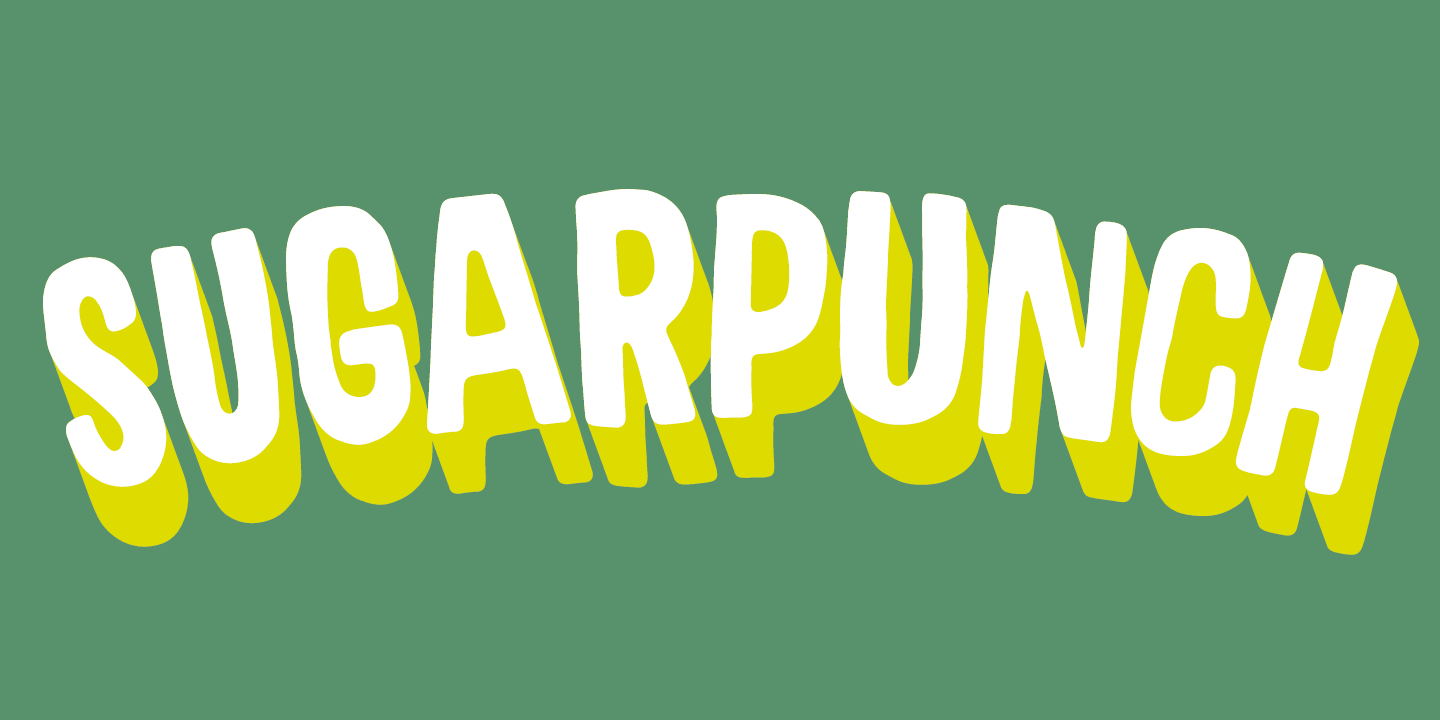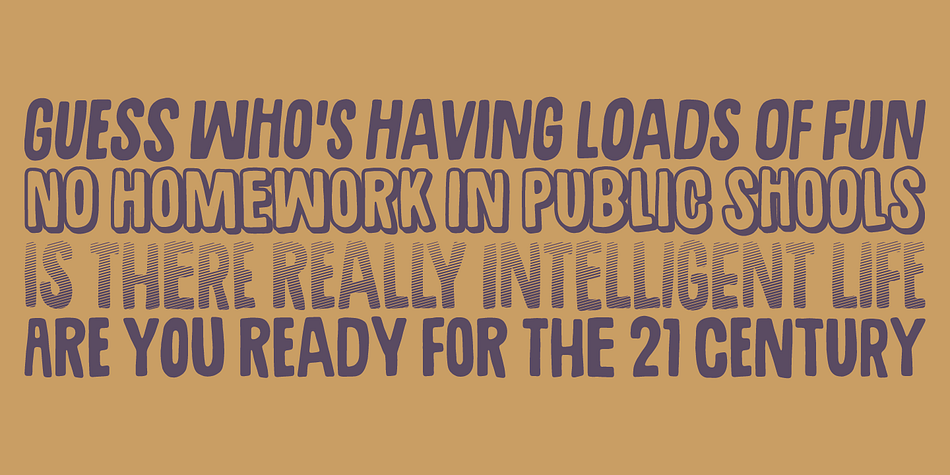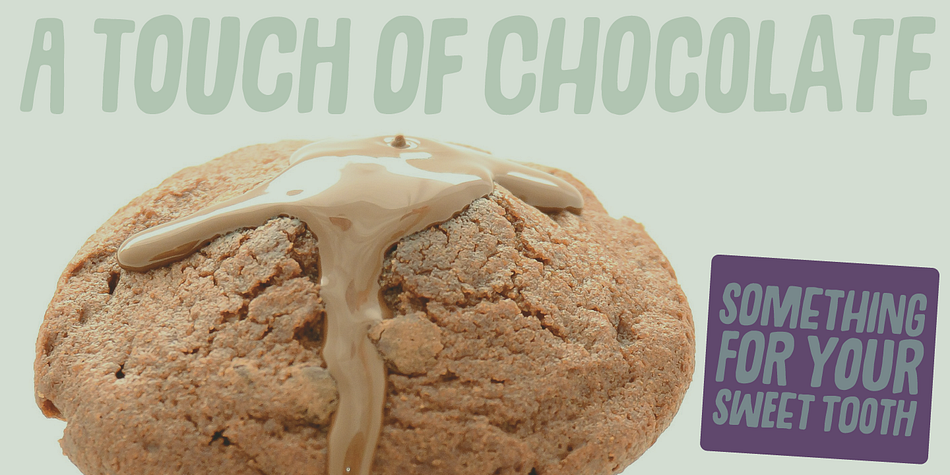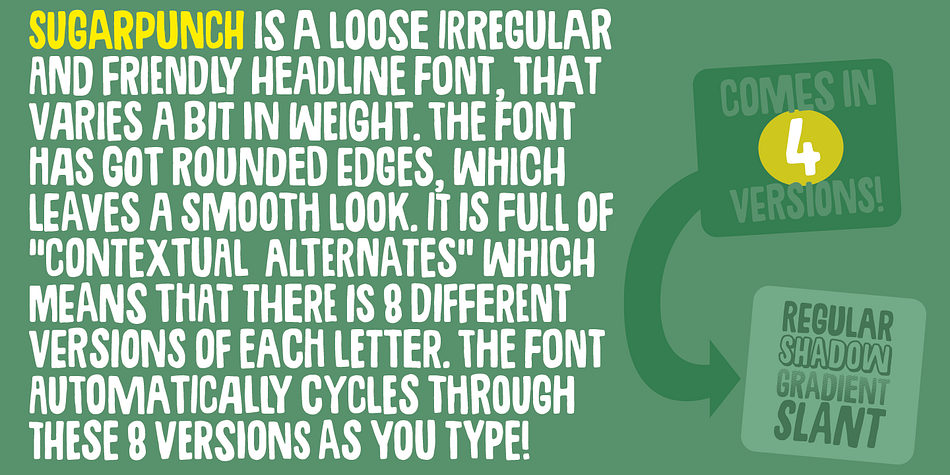
Sugarpunch is a hand display font family. This typeface has four styles and was published by Pizzadude.dk.
Sugarpunch is kinda like a strawberry and chocolate smoothie: tasty, creamy and delicious!
With its round edges, you get a smooth look. Perfect for anything that needs a handmade look, and legible even at small sizes.
Comes in 4 different versions, all with astonoshing 8 different versions of each letter, that cycles as you type. On top of that, loads and loads of international characters!